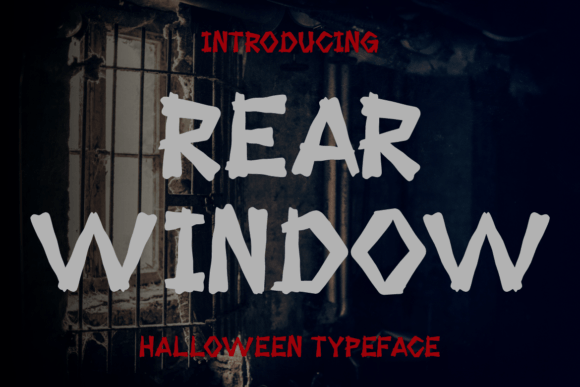
Introducing Rear Window - The Font That Conjures Chilling Atmospheres
Step into the cryptic world of Rear Window, a display font born from the depths of darkness and intrigue. Designed to evoke an air of mystery and suspense, this font is the ultimate tool for creating captivating visuals that leave a lasting impression.
With its eerie and haunting strokes, Rear Window commands attention like no other. Its bold and jagged edges evoke a sense of foreboding, transporting you to a realm of shadows and whispers. Unleash your imagination and watch as Rear Window casts a spellbinding aura over your designs.
Capture the true essence of Halloween with Rear Window, the font that breathes life into the supernatural. Imagine your invitations adorned with ghostly texts, your posters whispering tales of terror, and your merchandise designs exuding an otherworldly charm. The possibilities are endless, as Rear Window effortlessly weaves its haunting magic.
But beware, dear adventurer, for Rear Window is not confined to Halloween's embrace. Its versatility extends far beyond the realm of spookiness, beckoning you to explore uncharted territories of creativity. Use it to craft warning signs that command obedience, or let it add an edge to your website's design, creating an experience that lingers in the minds of visitors.